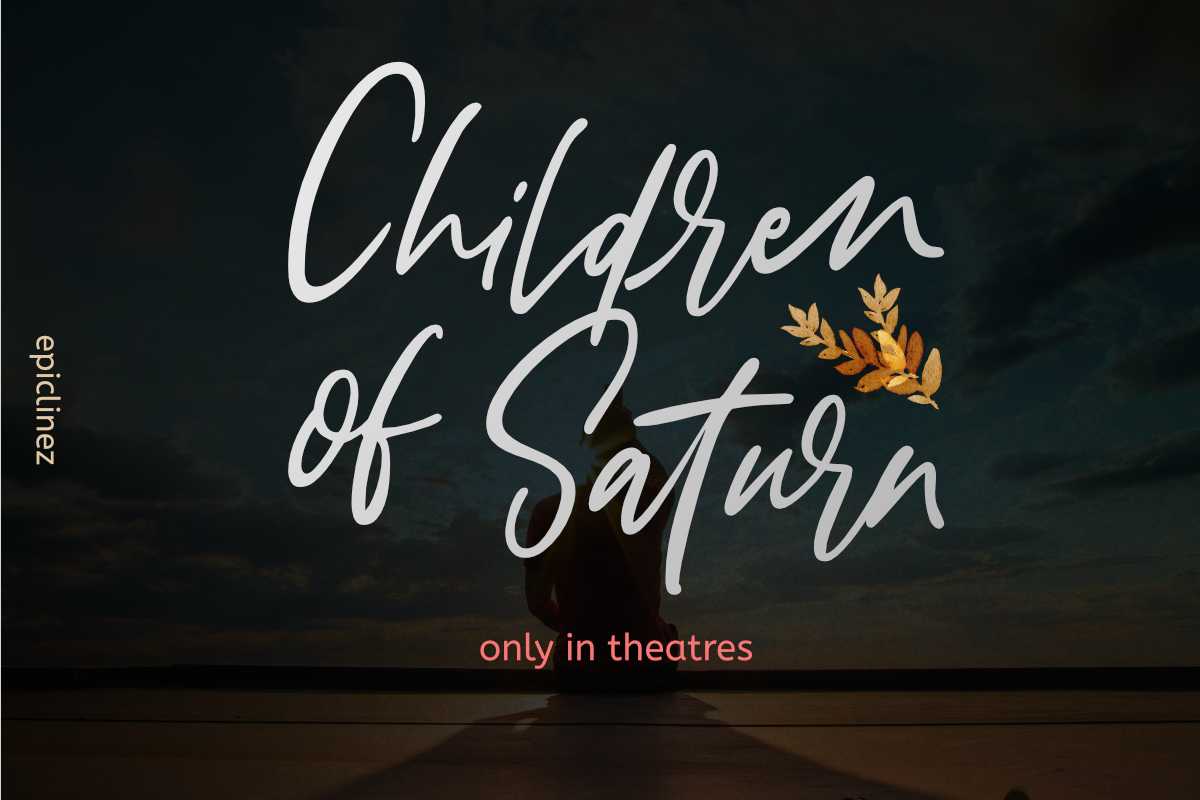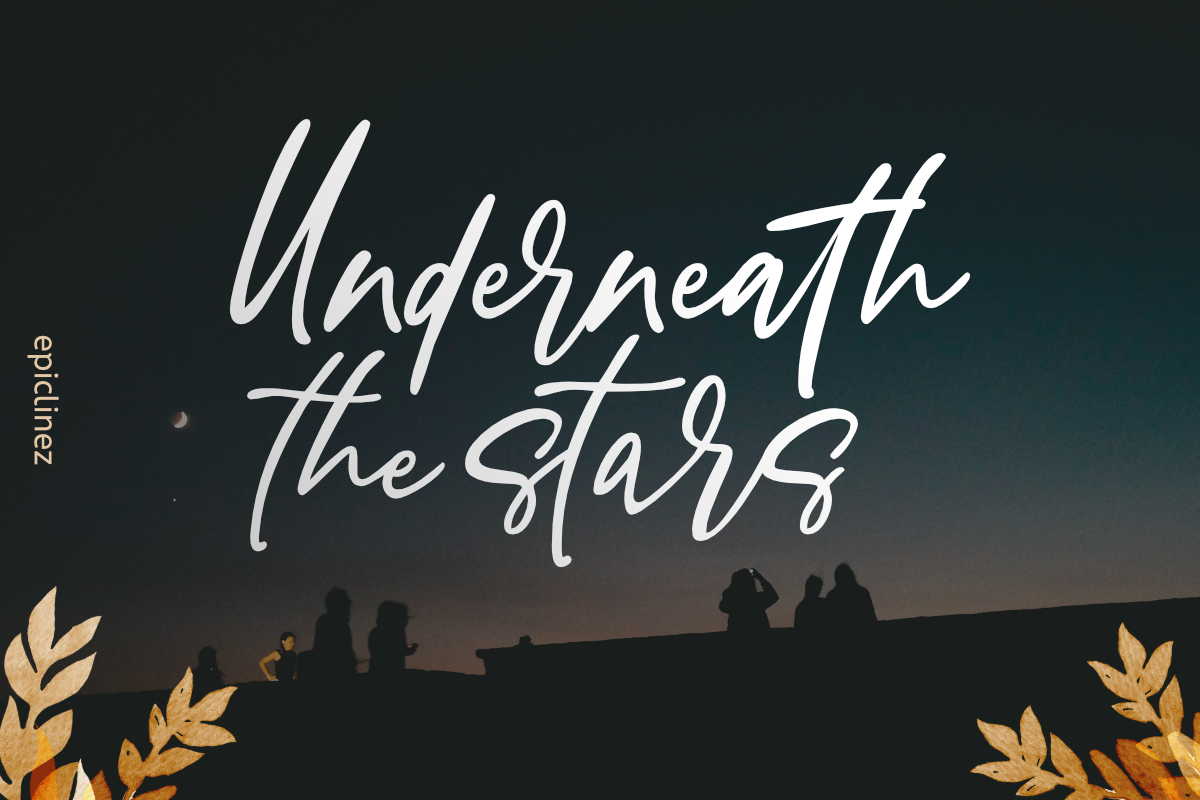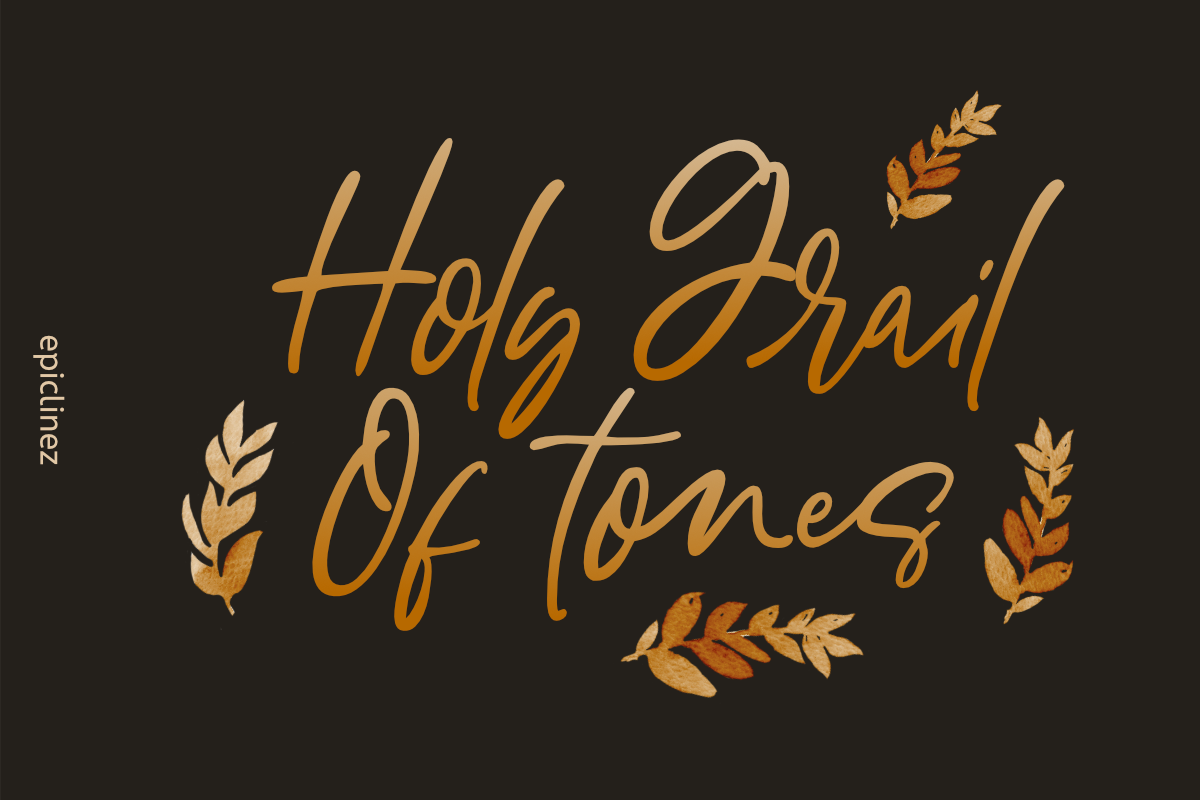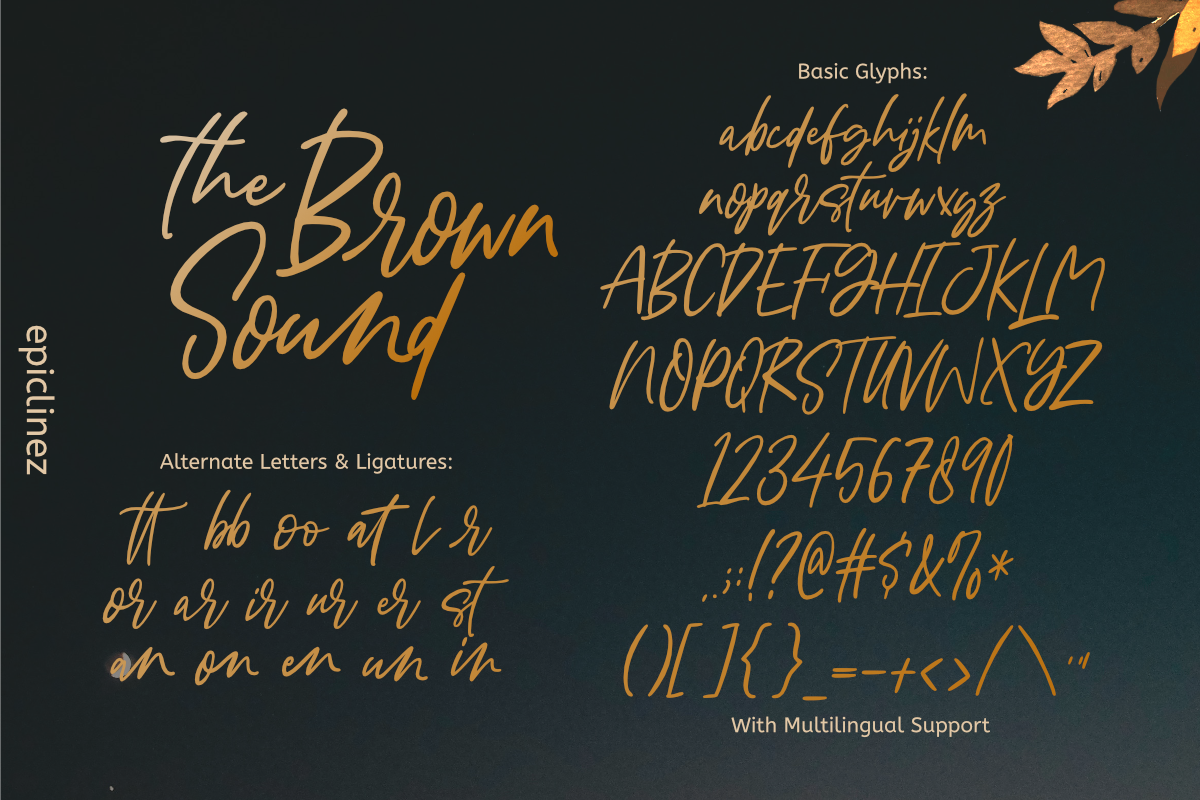
Brown Sound | Stylish Signature
Brown Sound is an authentic signature script font. This handwritten beauty is suitable for high-end, sophisticated branding, movie poster, album cover or for simple, memorable Instagram quotes.
- Basic Latin A-Z, a-z, numbers, symbols, and punctuations
- Open Type Features: Alternate Letters & Ligatures
- Brown Sound is supporting 16 Languages: Afrikaans Albanian Catalan Danish Dutch English Estonian Finnish French German Italian Norwegian Portuguese Spanish Swedish Zulu.